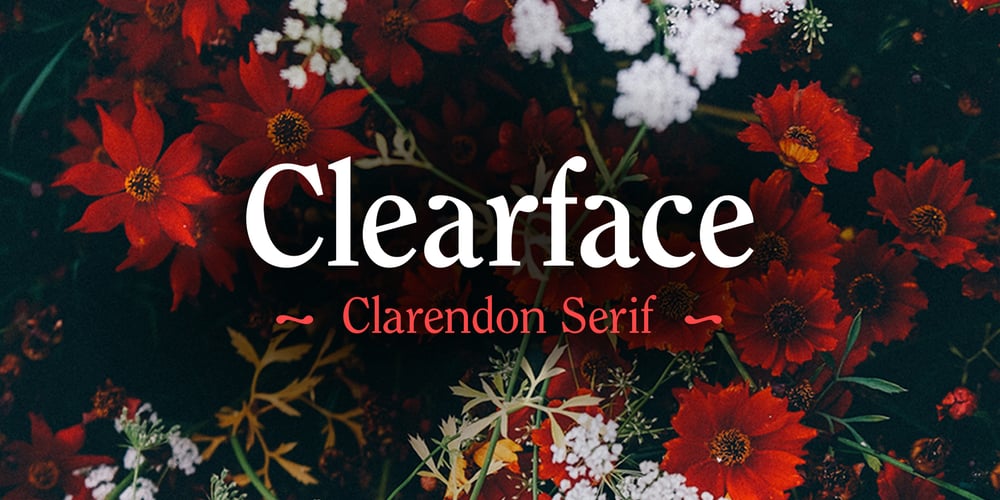
ITC Clearface Font Family was designed by Victor Caruso, Morris Fuller Benton and published by ITC. ITC Clearface contains 8 styles and family package options. The Clearface types were originally designed by Morris Fuller Benton in 1907. Their forms expressed the Zeitgeist of the turn of the 20th century; typical and distinguishing characteristics are the forms of the a” and the “k.” The ATF version did not include an accompanying Italic.In 1978, ITC’s Victor Caruso was licensed by ATF to develop a new serif typeface and matching italic based on the forms of Clearface. The result was ITC Clearface, a serif typeface with marked stroke contrast and italic weights. The teardrop-formed endings of the lowercase a, c and f (also found in Caslon) define the character of the face. The type’s design is also distinguished by its small — almost slab — serifs, a large x-height, and little stroke contrast. ITC Clearface, with its historical touch, is good for both texts and headlines, but its slightly condensed nature performs at its best when it is allowed its space.